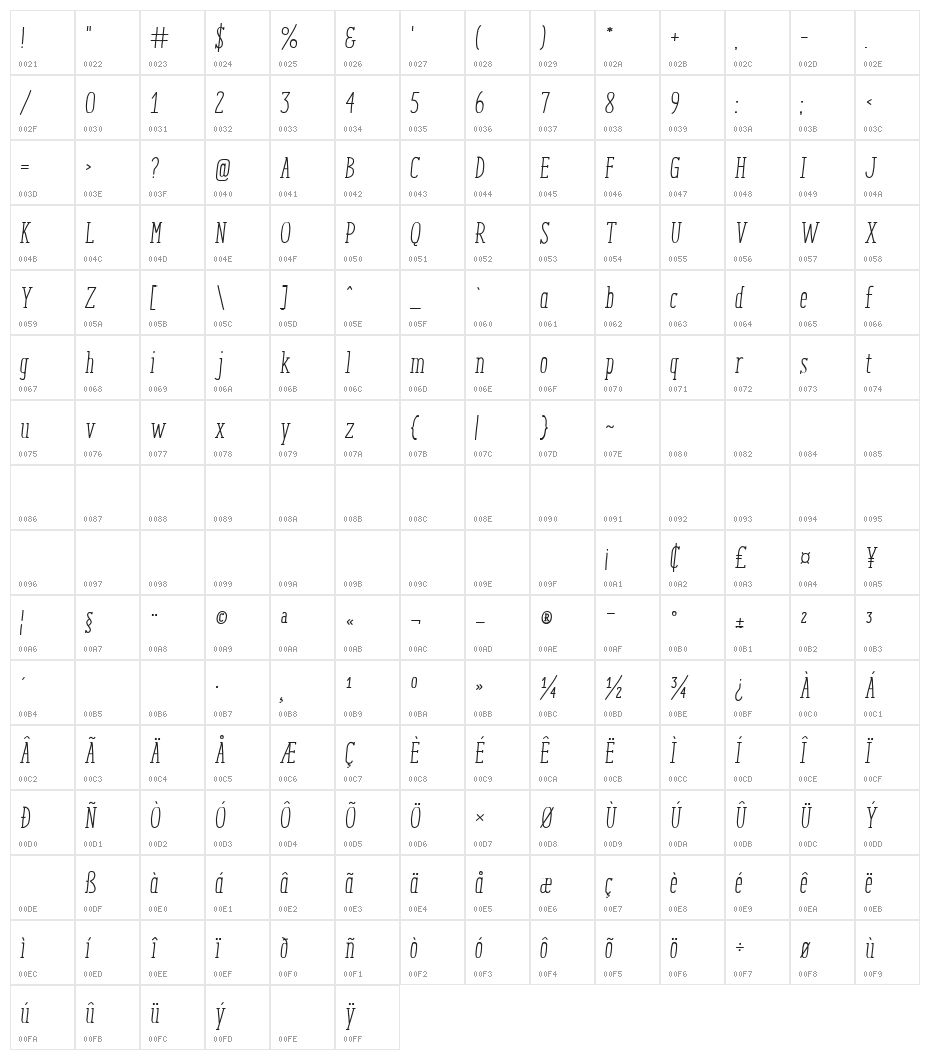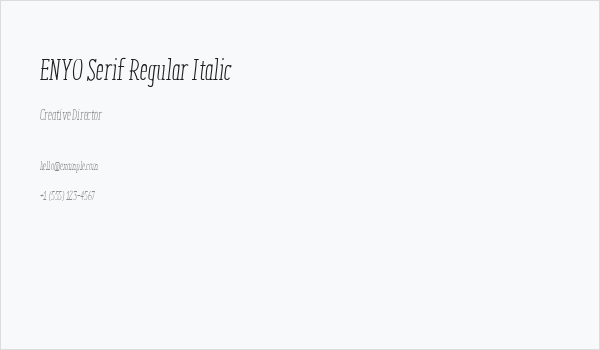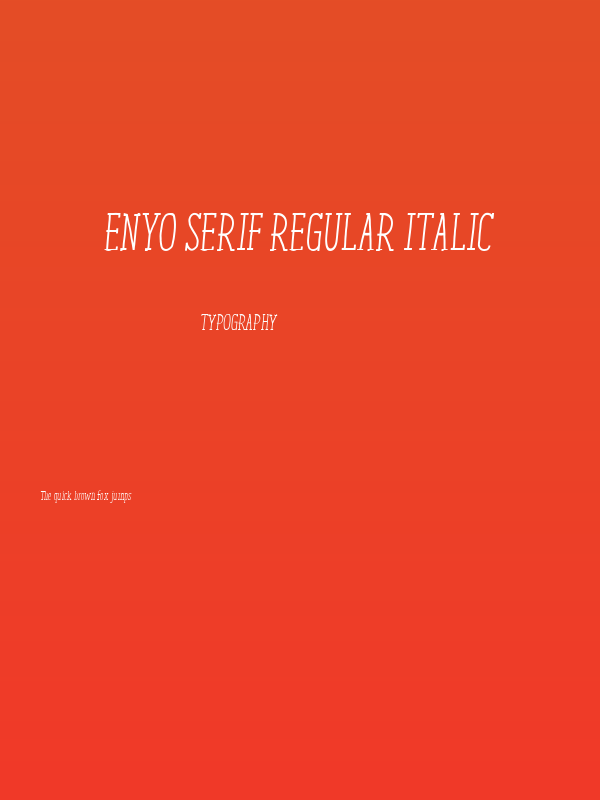
ENYO Serif Regular Italic Font
ENYO Serif Regular Italic Description
This font features a classic serif style with a distinct italic slant, giving it an elegant and sophisticated appearance. The characters are well-defined with moderate contrast in stroke thickness, enhancing readability while maintaining a stylish look. The uppercase letters are tall and commanding, while the lowercase letters are more delicate, providing a nice balance. The numerals are clear and consistent with the overall design, and the special characters are crafted to match the font's refined aesthetic. This font is versatile, suitable for both formal and creative projects, offering a timeless appeal.
| Proposed Projects | Ideal for editorial design, book covers, invitations, and branding materials that require a touch of elegance. |